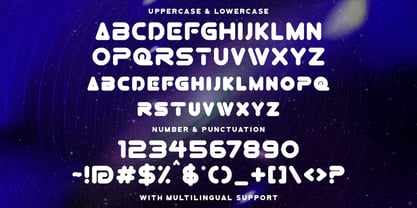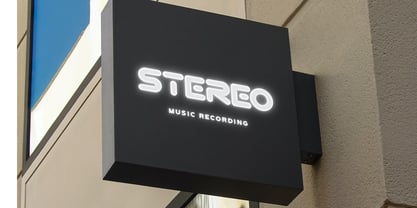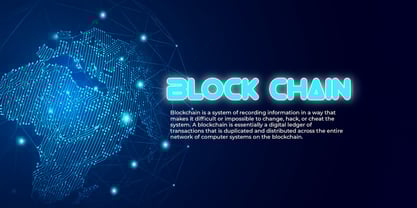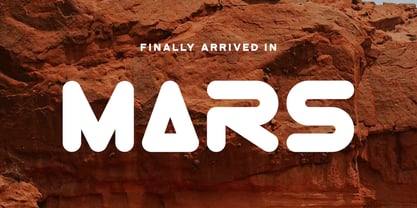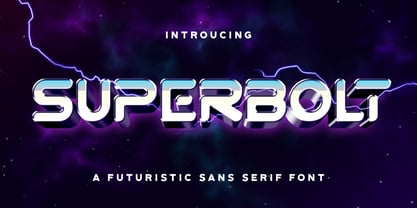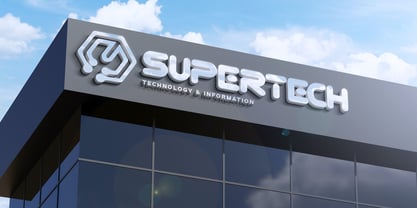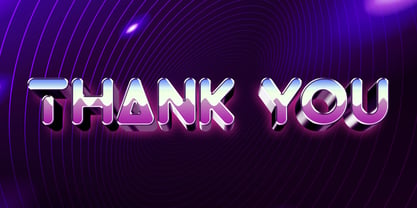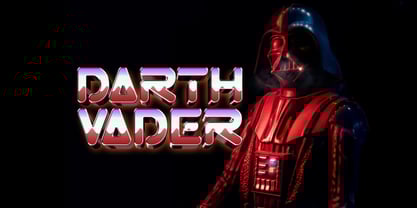
La famille de polices Superbolt a été conçue par Virgiawan Listanto et publiée par Stringlabs Creative Studio. Superbolt contient 1 styles. En savoir plus sur cette famille
SUPERBOLT is a bold futuristic sans font built for impact, speed, and modern innovation. With sharp edges, clean lines, and a high-tech feel, this font is perfect for designs that push boundaries and embrace the future. Whether you're crafting esports graphics, sci-fi posters, or tech branding, SUPERBOLT delivers a striking, high-energy look that commands attention.
Superbolt